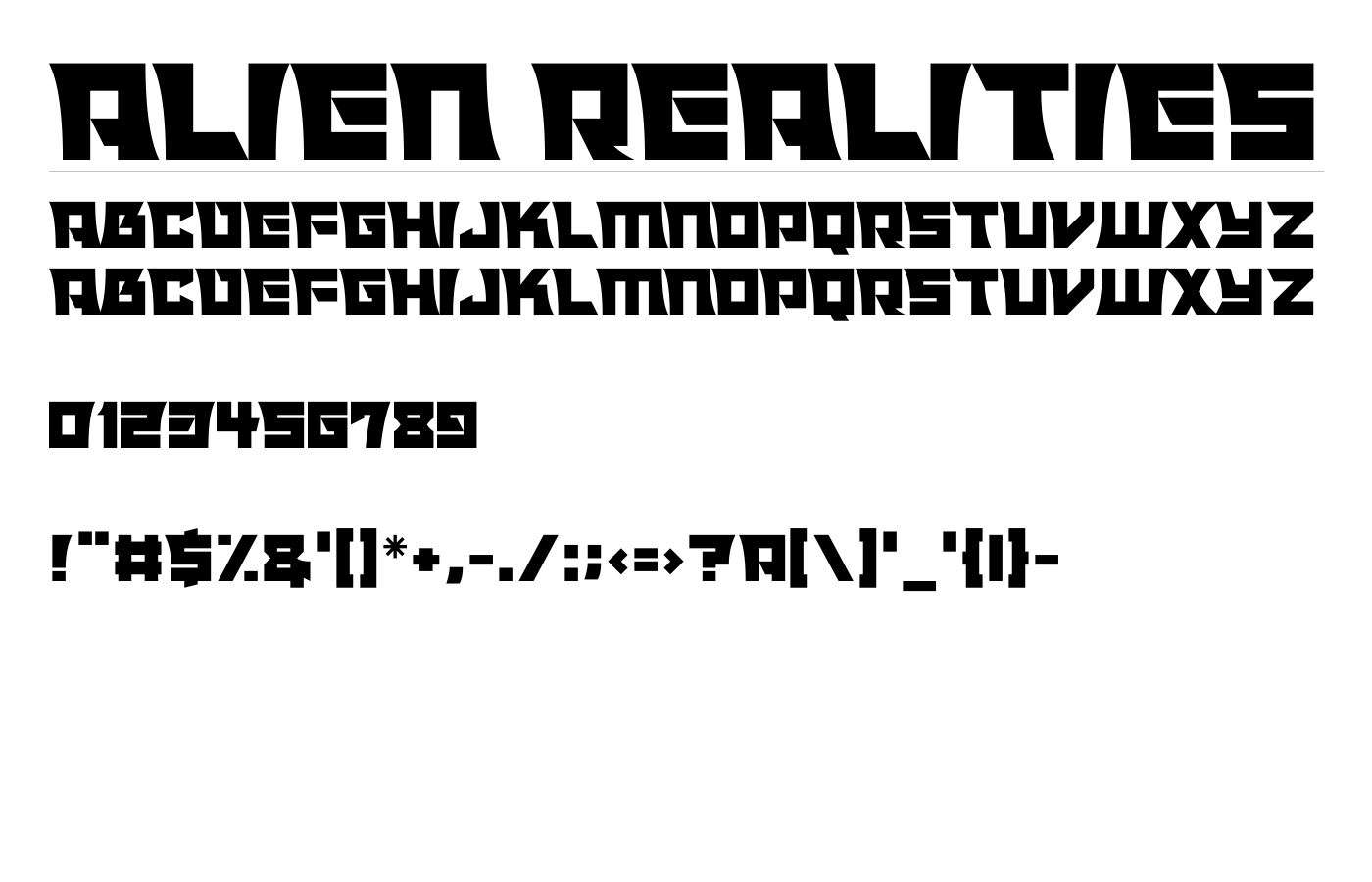
Alien Realities is a bold, geometric display font with sharp, angular forms that evoke a futuristic and sci-fi vibe. Its condensed structure, high stroke contrast, and blocky letter shapes make it perfect for impactful headlines, logos, or branding in technology, gaming, or space-themed projects. This font’s distinctive style gives any design a strong, otherworldly personality that stands out with a modern, edgy flair.
Alien Realities Font